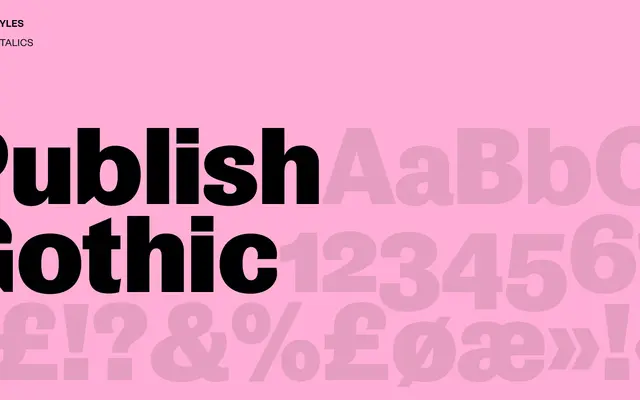
Publish Gothic
A grotesque sans from Copenhagen foundry Playtype, positioned for editorial and publishing contexts.
Publish Gothic sits within the grotesque sans tradition, taking its name from a publishing and editorial orientation. The page content provided is insufficient to detail weights, language support or full family structure, but the Playtype foundry is known for clean, considered typefaces aimed at professional typographic work.
The name and foundry context suggest a gothic sans-serif in the grotesque tradition; insufficient page content to determine further subcategory specifics.